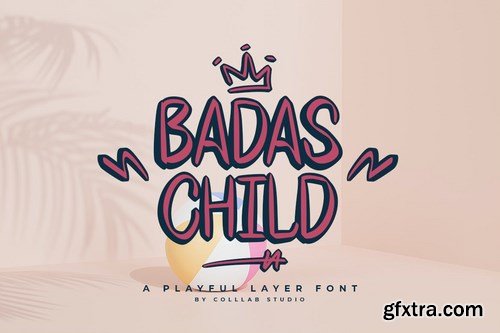
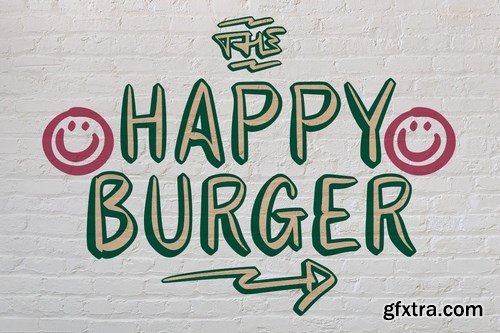
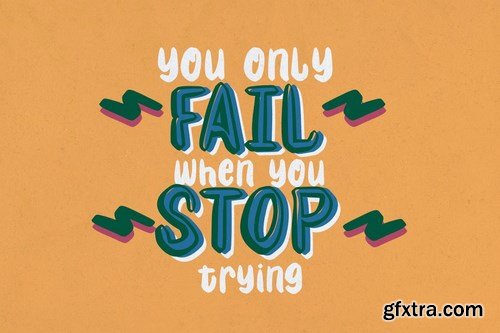
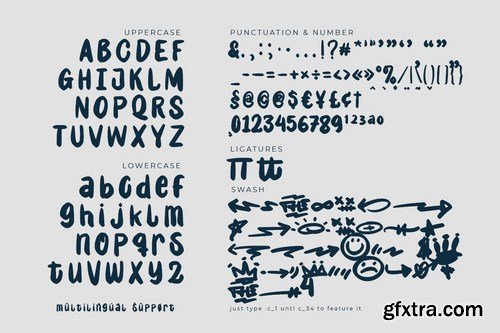
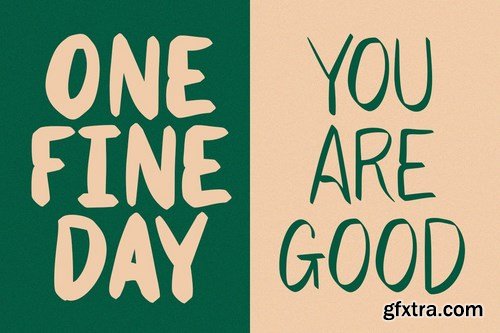
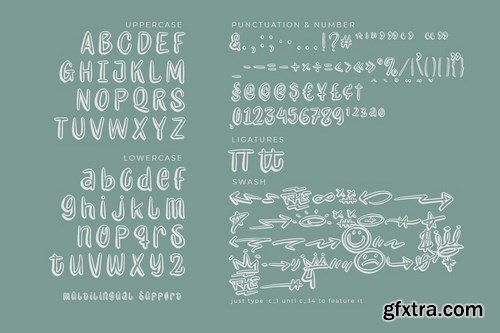
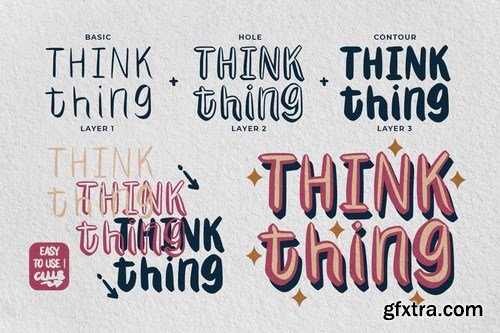
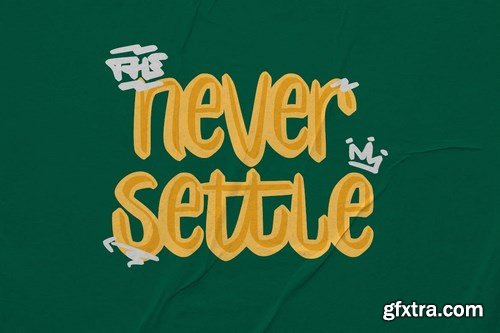
Badas Child was created from the inspiration around us. The merging of tradition and modernity. It takes lettering to another level with its diverse range of characteristics.